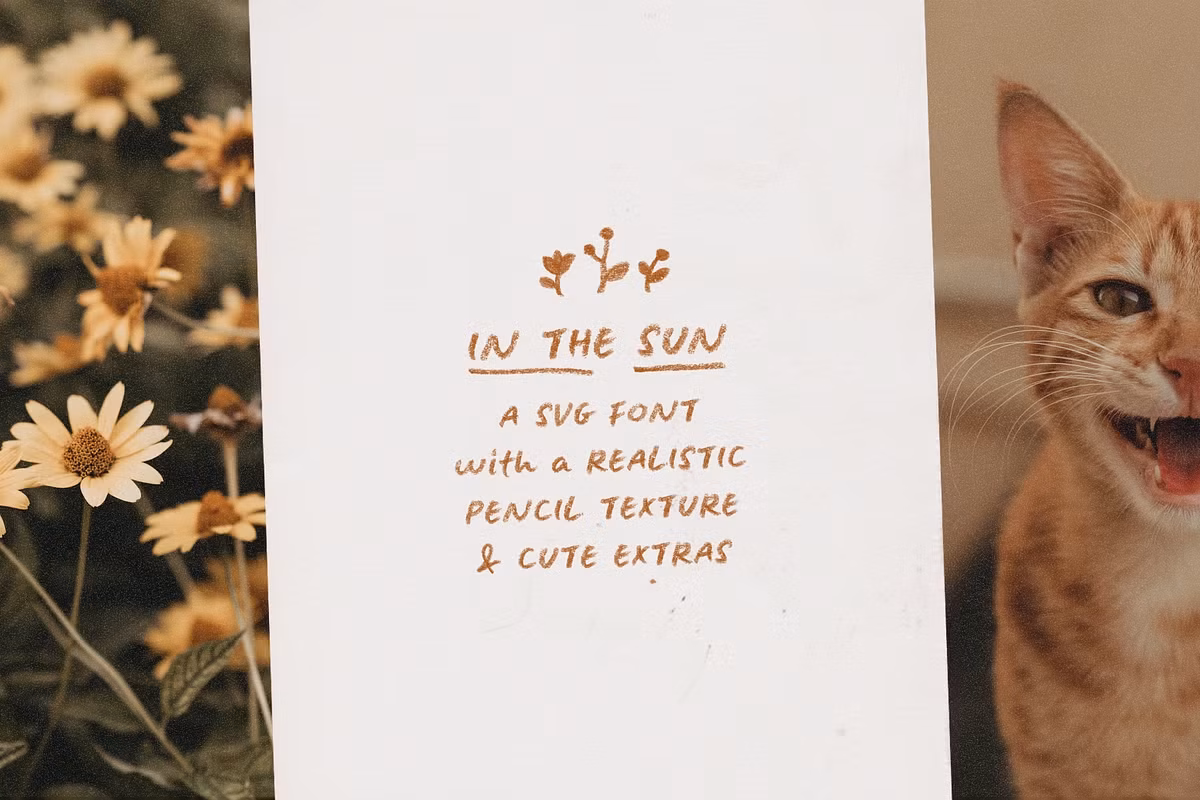
In The Sun handwritten SVG font Free Download
In The Sun Handwritten SVG Font Free Download
In The Sun Handwritten SVG Font Free Download is a playful and charming typeface that captures the warmth and organic feel of handwritten text. With its unique SVG format, this font allows you to incorporate vibrant textures and intricate details into your designs, making it perfect for creative projects that need a personal touch. Ideal for invitations, greeting cards, social media graphics, and branding, this font brings a joyful and handcrafted style to any project. Whether you’re designing for a fun brand, a casual event, or crafting personalized content, In The Sun Handwritten SVG Font Free Download lets you test its colorful and expressive beauty in personal projects before purchasing a commercial license. Add a cheerful, vibrant feel to your designs with this beautifully crafted handwritten font.